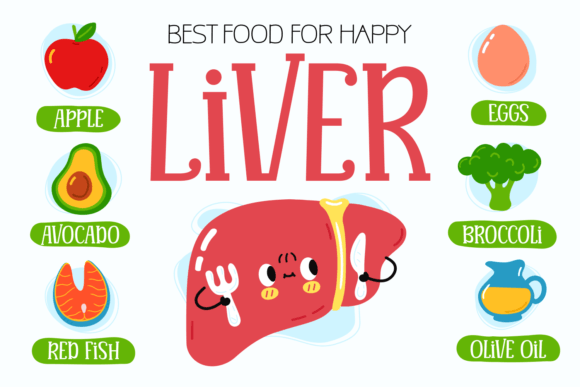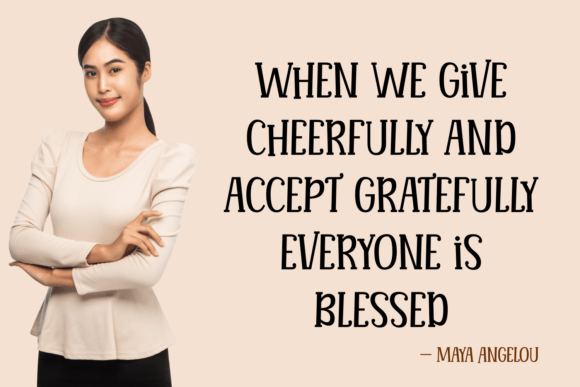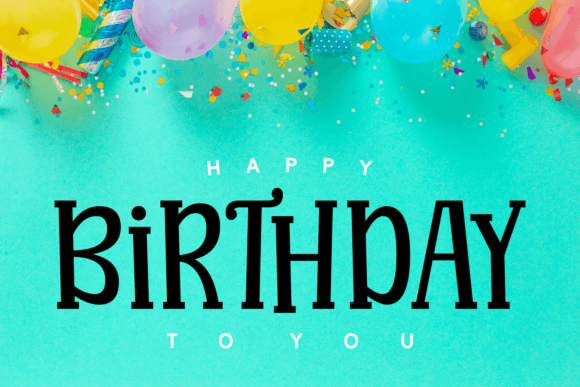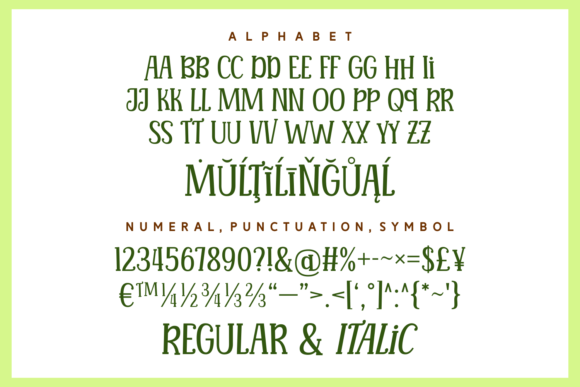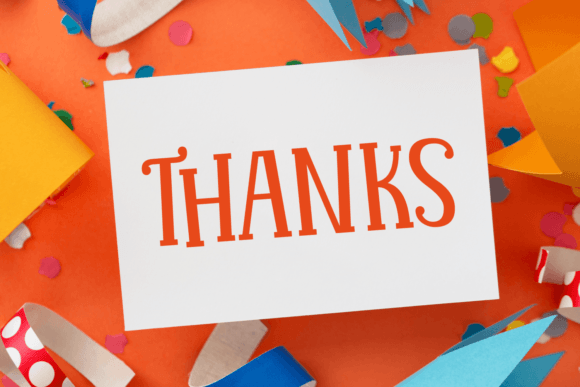
Introduction to Mixed Avocado Font
As a designer, there’s nothing quite like the thrill of bringing a project to life. It’s the moment when all the pieces come together, and you step back to admire your handiwork. But what if you had the perfect font to elevate your design to the next level? Enter the Mixed Avocado Font, a playful serif font that’s sure to add a touch of whimsy to any project.
Whether you’re working on a personal project or collaborating with a team, the Mixed Avocado Font is a valuable resource that’s sure to impress. With its high-quality design and transparent background, this font is perfect for designers who want to add a little extra flair to their work. And the best part? It’s free to download, making it an accessible design resource for creatives of all levels.
- Unique Blend of Styles: Mixed Avocado Font combines different font styles to create a one-of-a-kind design resource perfect for creative projects.
- Perfect for Creative Projects: Mixed Avocado Font is a versatile design resource that can be used for various creative projects, including graphics, logos, and more.
Honest Review: Mixed Avocado Font
I recently came across the Mixed Avocado Font, and I was excited to dive in and see what it had to offer. As a designer, I’m always on the lookout for high-quality design resources to elevate my creative projects.
Here are some pros and cons I’ve discovered:
- ✨ The font is super versatile, making it easy to use in a variety of design projects. From logos to branding materials, it’s a great addition to any design toolkit.
- ⚠️ One limitation I’ve noticed is that the font may not be suitable for projects that require a lot of intricate text layouts. It’s best used for titles and headings.
- ⚠️ The font family is relatively small, which may limit its use in certain design contexts.
Overall, I think the Mixed Avocado Font is a solid addition to any designer’s toolkit. It’s easy to use, high quality, and versatile – what more could you ask for? Whether you’re working on a personal project or a client brief, this font is definitely worth checking out.
Mixed Avocado Font is a unique and creative design resource perfect for any high-quality project. This font features a transparent background and is available for free download, making it an ideal choice for designers and artists.
Use the Mixed Avocado Font in conjunction with other design elements to create a unique and eye-catching design. Experiment with different font sizes and styles to add depth and interest to your project.
The Mixed Avocado Font is ideal for creative projects such as graphic design, digital art, and typography. It is also perfect for personal projects such as invitations, posters, and social media graphics.